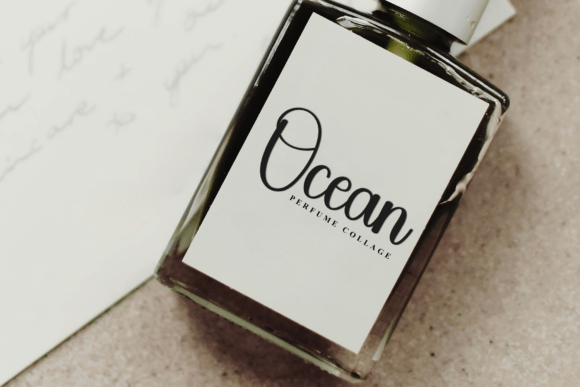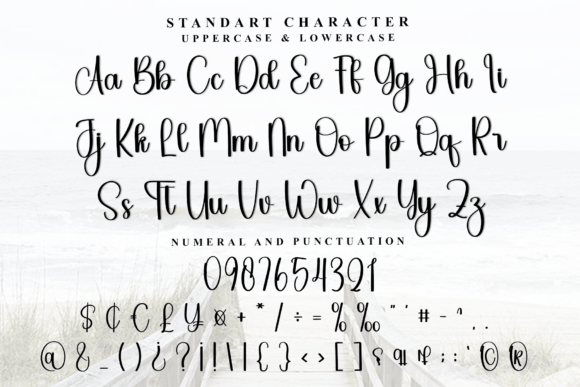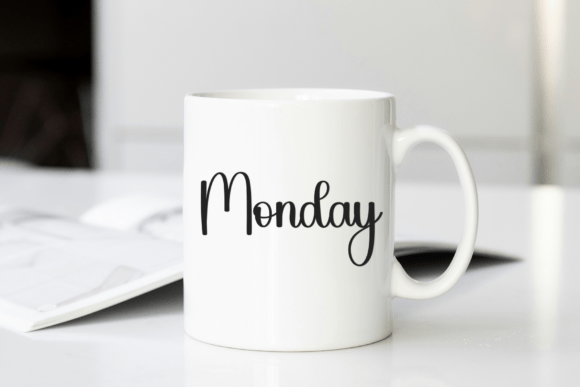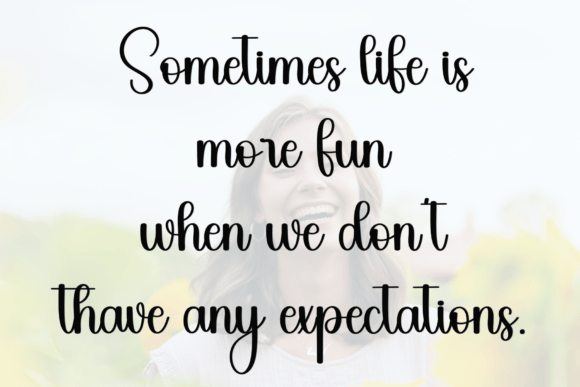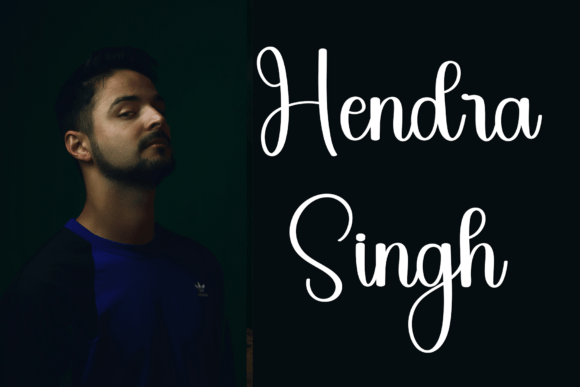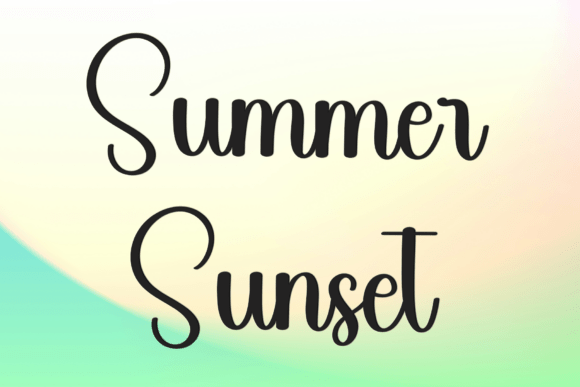
Introducing Fastival Summer Font: Elevate Your Designs with a Unique Touch
Are you tired of using the same old fonts for your design projects? Look no further! Fastival Summer Font is here to revolutionize the way you approach typography. This beautiful and eye-catching font is designed with a soft, unique touch that will make your creations stand out from the crowd. In this article, we’ll dive into the features and benefits of Fastival Summer Font, and explore how it can elevate your designs to the next level.
A Font Like No Other: Distinctive Strokes and Versatility
Fastival Summer Font boasts distinctive strokes that give it a special character, making it meaningful and versatile for future use. Its unique design ensures that your projects will have a one-of-a-kind look that will capture the attention of your audience. Whether you’re working on a design project, craft, or other creative work, this font is perfect for adding a touch of personality and flair.
A World of Characters at Your Fingertips
One of the standout features of Fastival Summer Font is its wide range of characters. With a variety of glyphs and symbols at your disposal, you’ll be able to create complex and visually appealing designs with ease. From simple text-based projects to intricate illustrations, this font has got you covered.
Perfect for Designers, Crafters, and Creatives
Fastival Summer Font is ideal for designers, crafters, and creatives of all kinds. Whether you’re working on a commercial project or a personal passion project, this font will help you to create stunning visuals that will engage and inspire your audience. From:
- Business cards and stationery
- Signs and banners
- Crafts and DIY projects
…to a wide range of other creative endeavors, Fastival Summer Font is the perfect choice.
Why Choose Fastival Summer Font?
So why should you choose Fastival Summer Font for your next project? Here are just a few compelling reasons:
- Unique and eye-catching design: Fastival Summer Font is unlike any other font on the market. Its soft, unique touch will make your designs stand out and grab attention.
- Versatility: With a wide range of characters and compatibility with multiple platforms, this font can be used in a variety of contexts and applications.
- High-quality: This font is designed to deliver high-quality results, with crisp and clear lines that will look great in any design.
Whether you’re a seasoned designer or a crafty DIY enthusiast, Fastival Summer Font is the perfect addition to your toolkit.
In conclusion, Fastival Summer Font is a game-changer for designers, crafters, and creatives of all kinds. Its distinctive strokes, wide range of characters, and seamless compatibility make it the perfect choice for a wide range of projects and applications. So why settle for ordinary fonts when you can create something truly extraordinary with Fastival Summer Font?